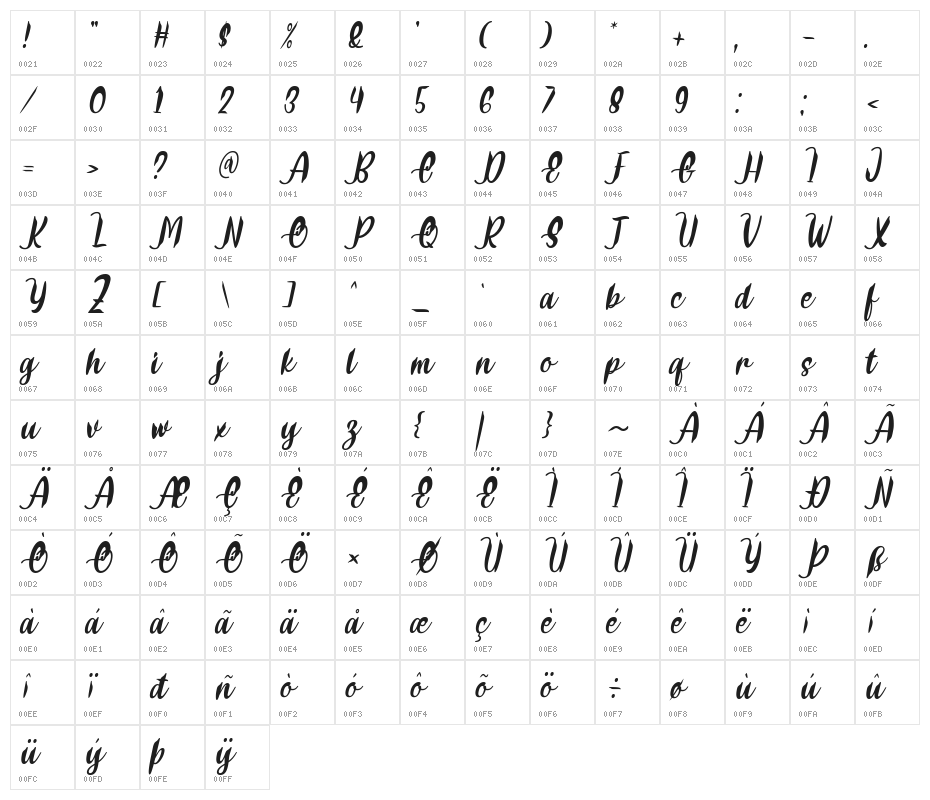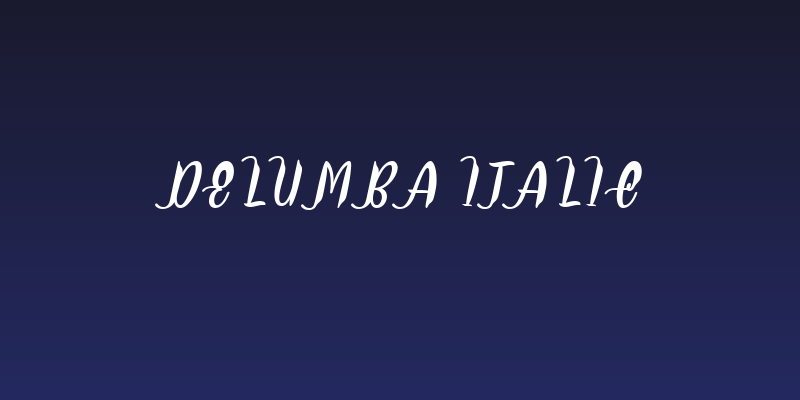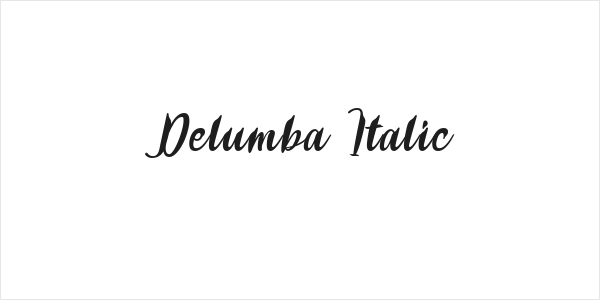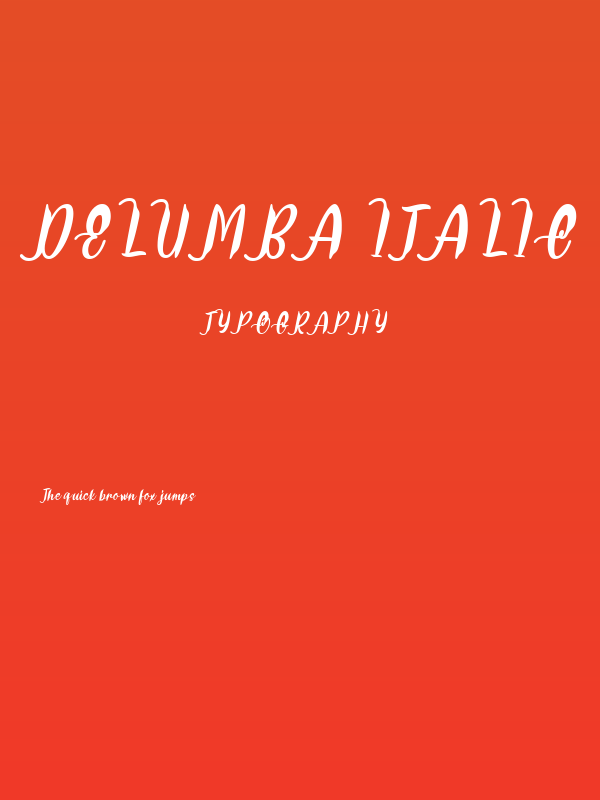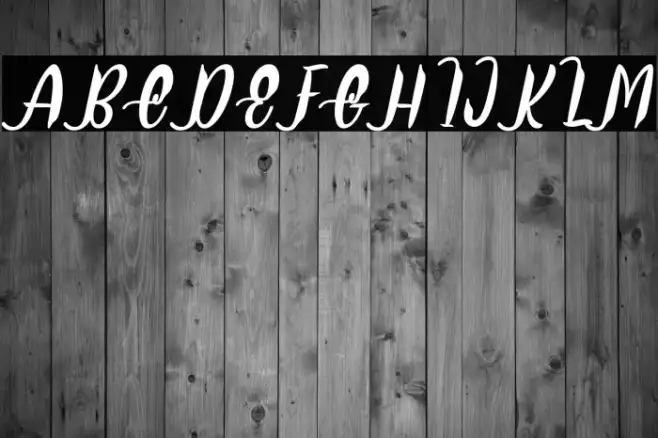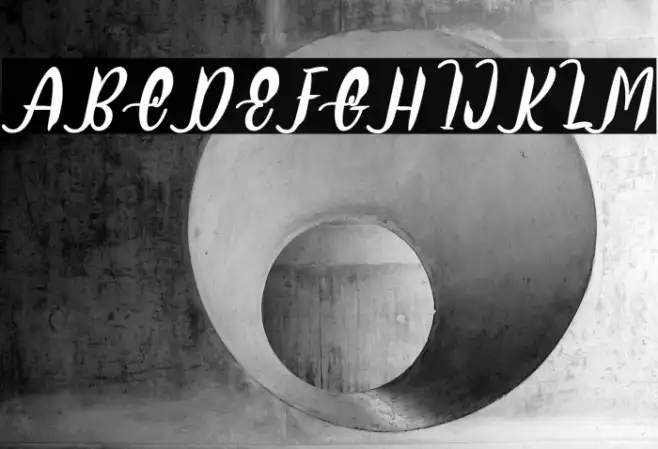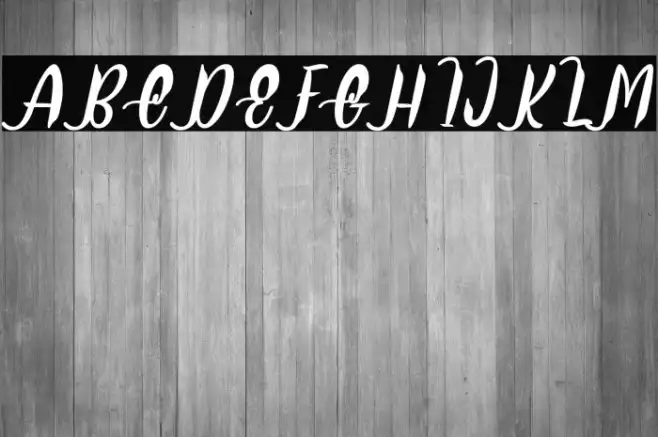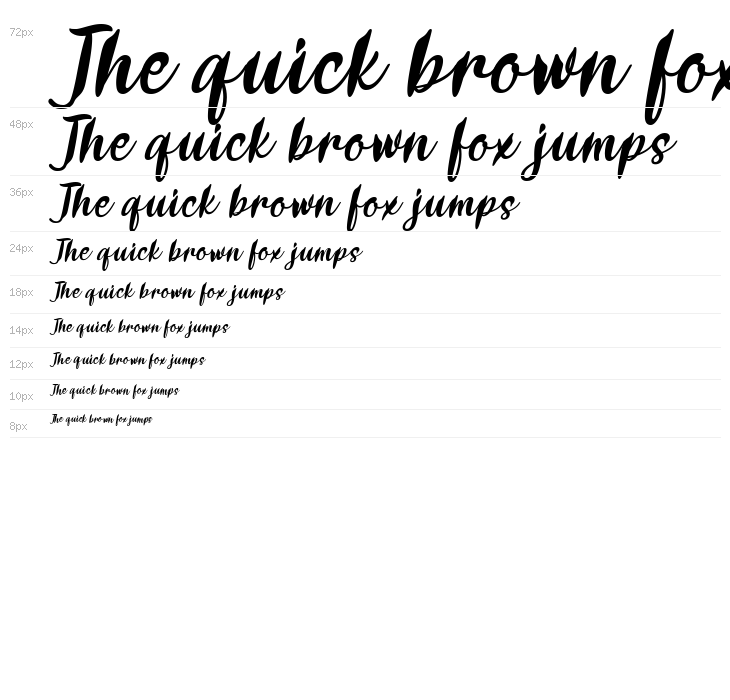
Delumba Italic Font
Delumba Italic Description
This font features a flowing, cursive style with elegant, sweeping strokes that convey a sense of movement and grace. The letters are connected, giving it a handwritten appearance, while maintaining a consistent slant that enhances its italic nature. The uppercase letters are bold and prominent, while the lowercase letters are slightly more delicate, yet still maintain a strong presence. The numerals are distinct and easy to read, with a slight flair that matches the overall aesthetic. Special characters are well-integrated, ensuring versatility in various design contexts.
| Overall Style | Elegant, Handwritten |
| Proposed Projects | Ideal for wedding invitations, elegant branding, personal stationery, and artistic posters. |